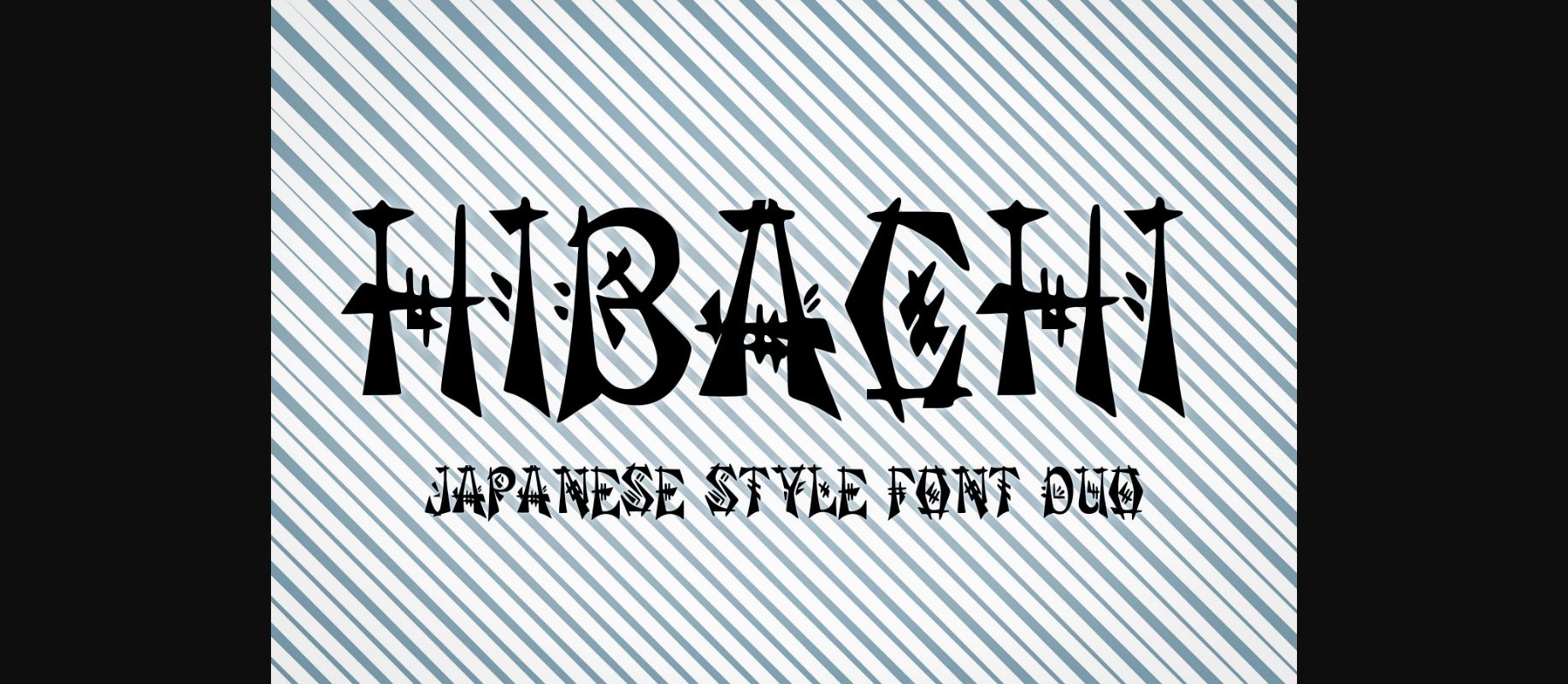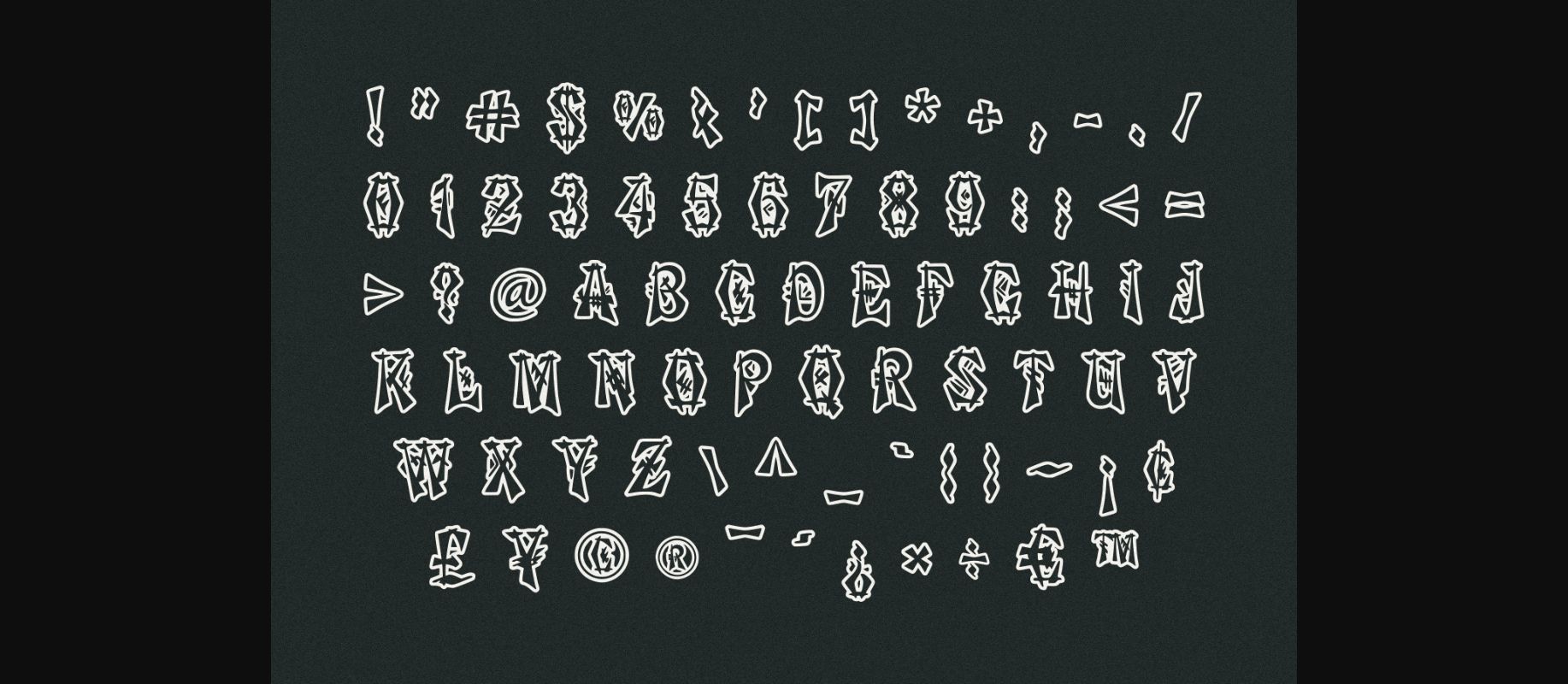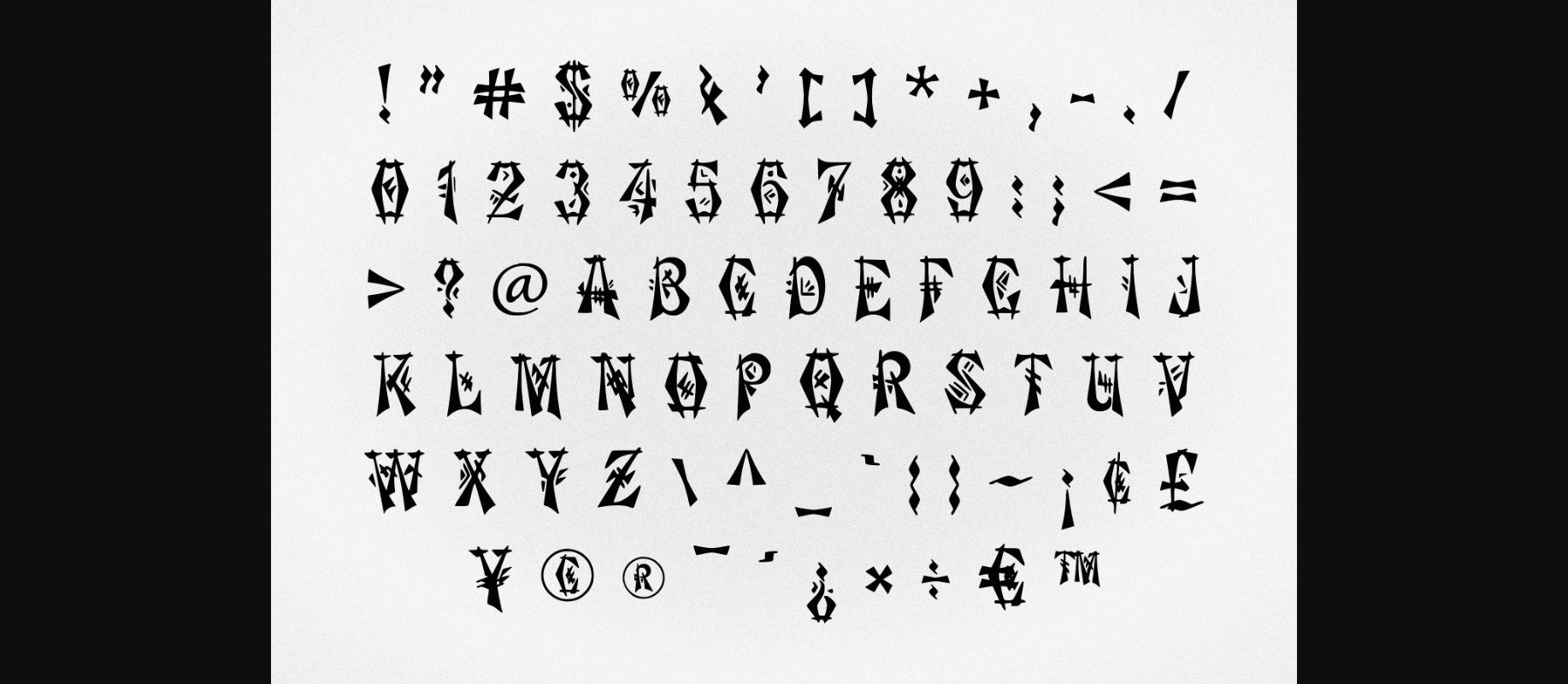
Hibachi Font
About Hibachi Font
Hibachi is a unique, Japanese-style decorative display font. Fall in love with its distinct and interesting vibe and bring your projects to the highest levels!